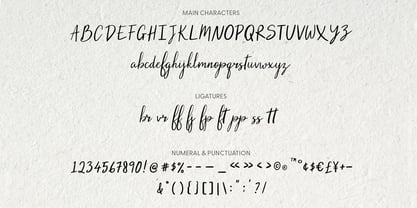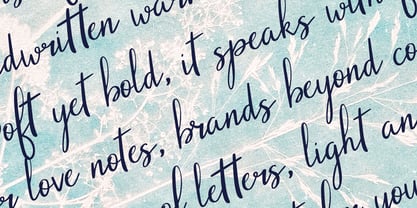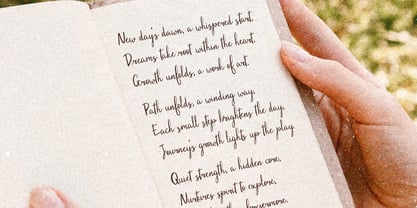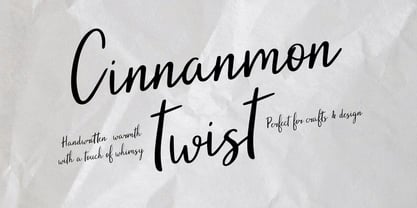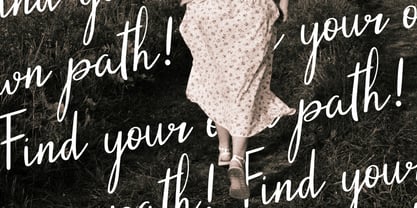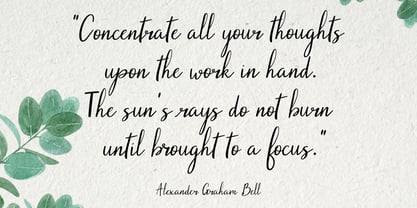
YJC Cinnamon Twist
by Yenty Jap Co
The YJC Cinnamon Twist Font Family was designed by Yenty Jap and published by Yenty Jap Co. YJC Cinnamon Twist contains 1 styles. More about this family
Introducing YJC Cinnamon Twist, a flowing handwritten script that blends warmth with effortless charm. Its smooth curves and natural strokes create an inviting yet refined look, perfect for adding personality and elegance to your designs. With a touch of whimsy and a contemporary feel, this font is designed to capture attention while maintaining legibility.
Perfect For:
• Logos & Branding – The stylish handwritten flow adds personality and uniqueness, making your brand stand out.
• Wedding Invitations & Stationery – A romantic and graceful script that enhances the beauty of special occasion designs.
• Quotes & Social Media Graphics – The natural hand-drawn aesthetic creates eye-catching, engaging posts.
• Product Packaging – Adds a handcrafted touch to labels, packaging, and gift tags.
• Greeting Cards & Printables – A heartfelt and expressive script that makes messages feel personal and warm.
Why You’ll Love YJC Cinnamon Twist:
• Handwritten Elegance – A natural, smooth script that balances style and readability.
• Versatile & Stylish – Works beautifully across various creative projects, from formal to playful.
• High-Quality Design – Carefully crafted with attention to detail, ensuring professional results.